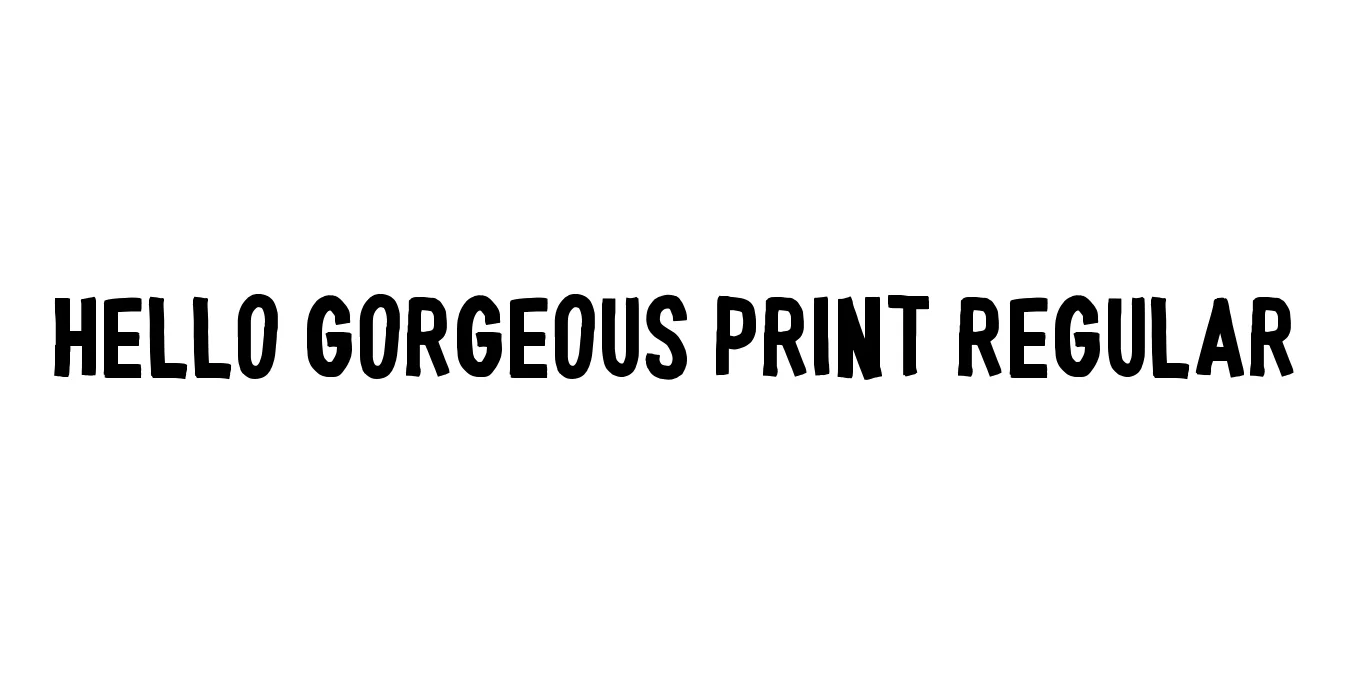
Hello Gorgeous Print Regular
Designed by Jacob Fischer (Pizzadude)
Hello Gorgeous Print Regular is a charming, hand-drawn typeface created by the prolific designer Jacob Fischer, better known as Pizzadude. It captures a whimsical and friendly aesthetic, making it a staple for informal designs and creative projects. The 'Print' version offers a cleaner, more legible structure compared to its more decorative counterparts while maintaining a distinct, organic personality.
This font is widely appreciated for its bouncy baseline and natural stroke variations, giving it an authentic, hand-lettered feel. It is frequently utilized in stationery, children's books, and social media graphics where a touch of warmth and approachability is required. Its playful nature allows it to stand out in both digital and print mediums, bridging the gap between casual scribbles and professional typography.
Hello Gorgeous Print Regular Best Uses
Engaging quotes and playful story headers for Instagram and Pinterest.
Adding a personalized, hand-written touch to invitations and birthday cards.
Friendly and readable text suitable for younger audiences and educational material.
Ideal for T-shirts and mugs with motivational or cute sayings.